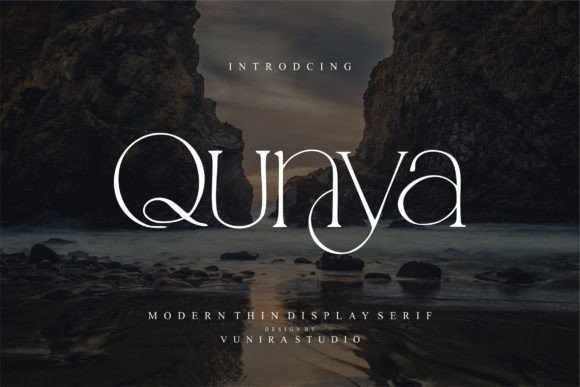
Qunya: A Serif Font That Elevates Your Craft Projects
Where to Use Qunya in Your Crafting Projects
- Handmade Labels: Whether it's for candles, soap, or boutique items, Qunya adds a refined look to your product tags.
- Greeting Cards: Its elegant style is perfect for birthdays, weddings, and other special occasions.
- Wedding Stationery: From welcome signs to place cards, Qunya brings a timeless charm to wedding designs.
- Invitations: With its calligraphic flair, it adds a personal and artistic touch to any event invitation.
- Wall Art: Create striking posters or printable art using Qunya’s distinctive typeface.
- Product Packaging: Use it on boxes, labels, or tags to enhance the visual appeal of your merchandise.
- Seasonal Crafts: From holiday tags to farmhouse signs, Qunya adapts beautifully to different themes and styles.
Practical Tips for Using Qunya in Your Work
- Use Mockups: Preview your designs with mockups to see how Qunya looks in real-life scenarios.
- Consider Readability: For smaller stickers or labels, ensure the font size is large enough to remain legible.
- Pair Thoughtfully: Qunya pairs well with sans serif fonts for a balanced look, or with bold scripts for a more dramatic effect.
Font Pairing Ideas for Maximum Impact
- Pair with a Clean Sans Serif: Combine Qunya’s elegance with a modern sans serif like Montserrat or Lato for a sophisticated contrast.
- Use with a Bold Display Font: For a strong visual statement, pair Qunya with a bolder serif or script font for headers and titles.
- Balance with Handwritten Fonts: Use Qunya as a background font alongside a more casual handwritten style for a layered, textured look.
- Stick to Serifs: If you're aiming for a cohesive serif-based design, Qunya works well with other serif fonts for a unified aesthetic.